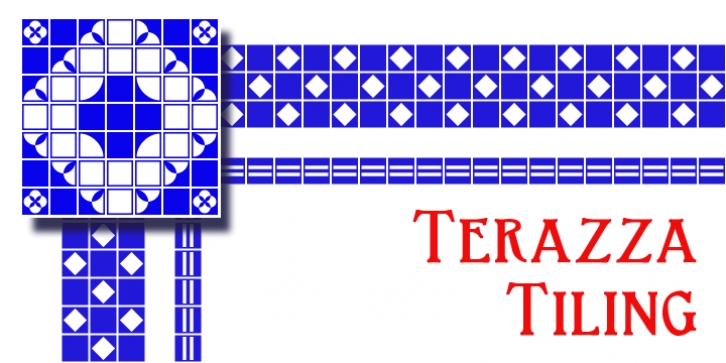
Terazza Tiling was published by Greater Albion Typefounders. Terazza Tiling contains 1 style.
Terazza Tiling was brought to mind by old-fashioned tiled fireplace surrounds.
It's a system of geometric tiles intended for constructing page borders and rules. Their geometric nature makes them adaptable for any sort of period or modern look.